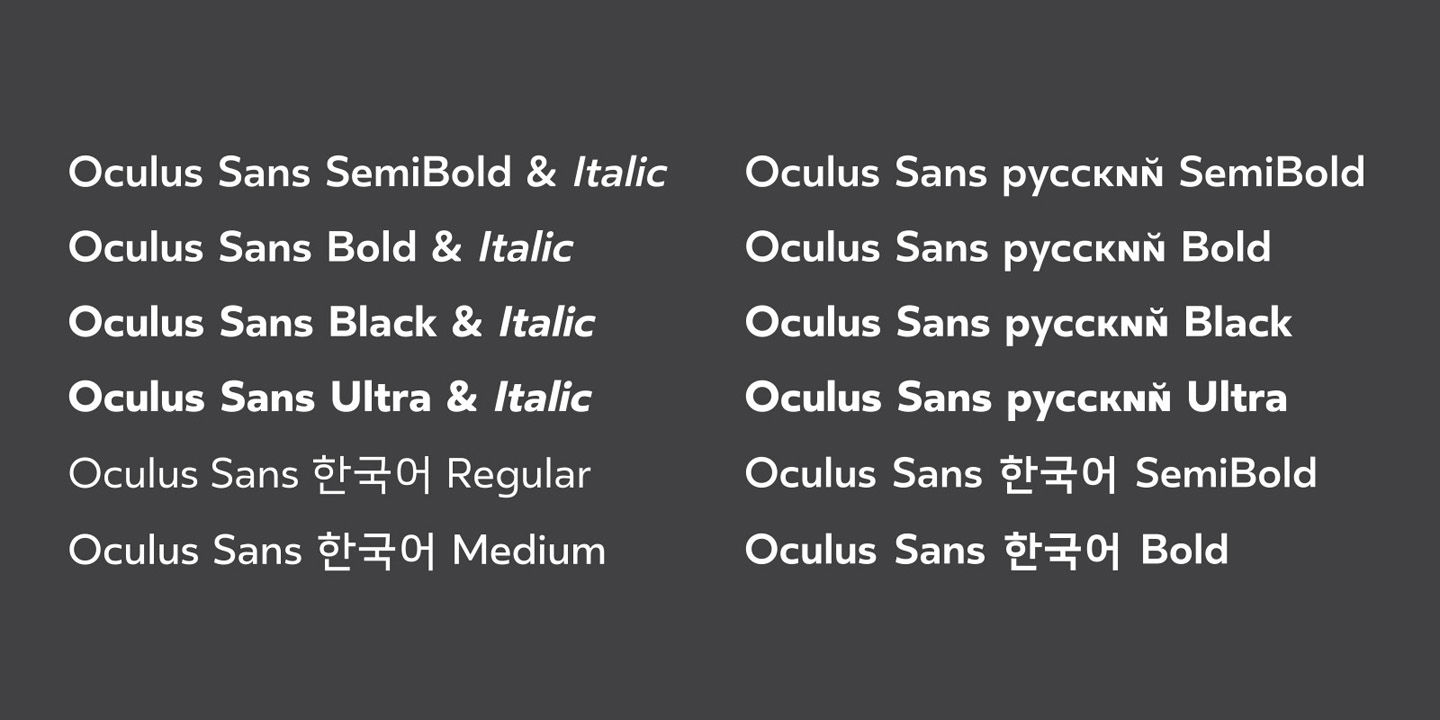
Oculus Sans
Oculus and Meta
Neil Summerour
Designed for Oculus in 2016, Oculus Sans is a custom brand typeface system built for use both inside the VR headset as the UI typeface and across the company's exterior brand and design work. Drawn from new skeletons developed specifically for Oculus's requirements, the family was designed with screen legibility and immersive display environments as foundational considerations. The completed system spans 10 weights and styles across Latin, Cyrillic, and Korean, including a full Hangul drawn from scratch to match the Latin family's design language and structural logic.